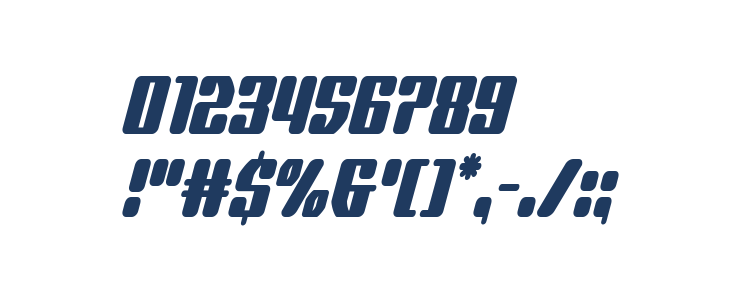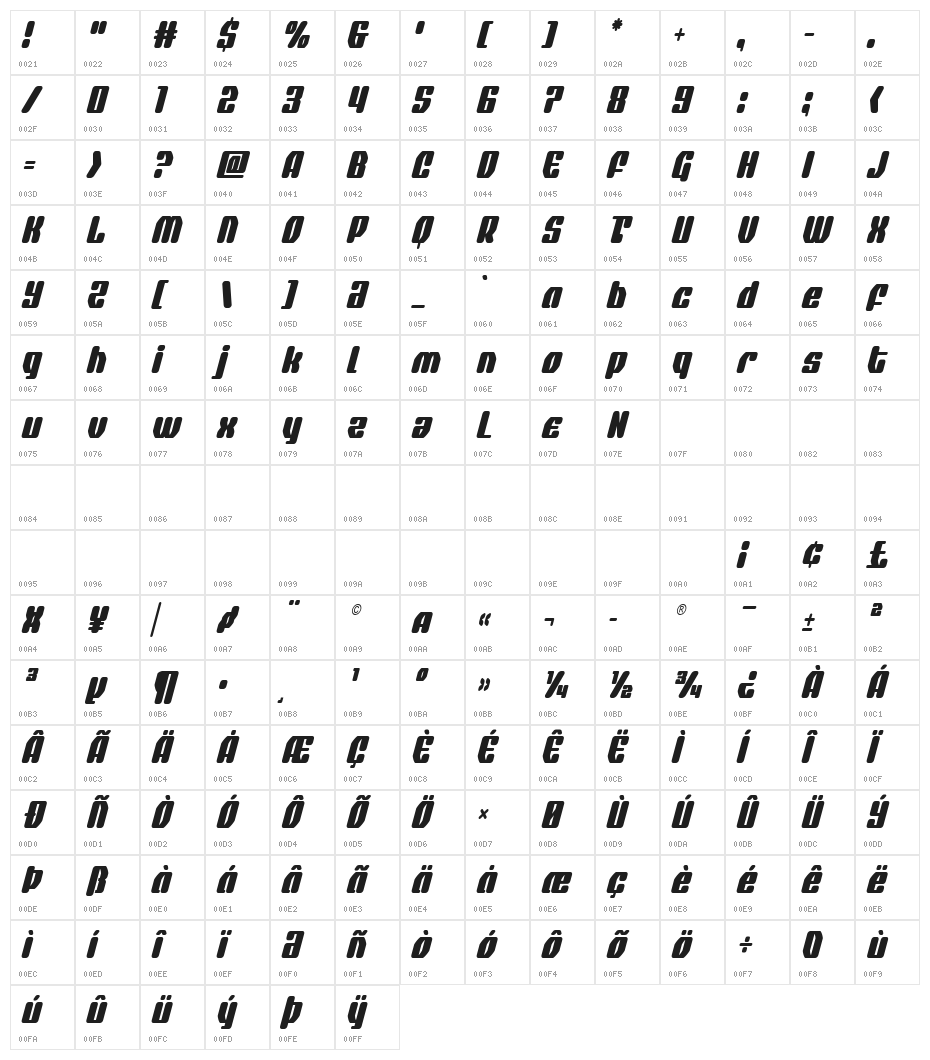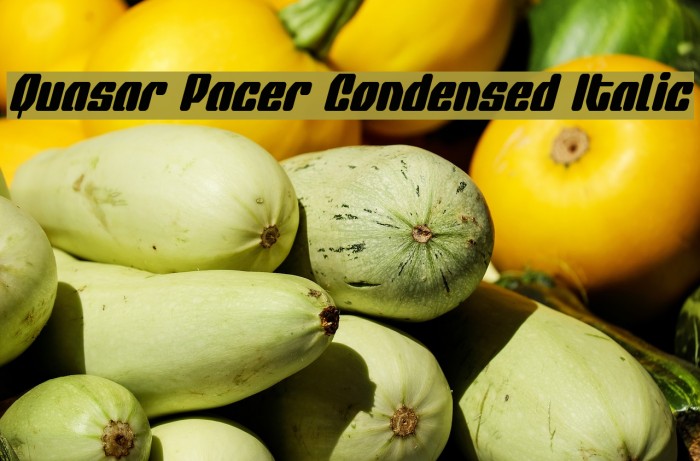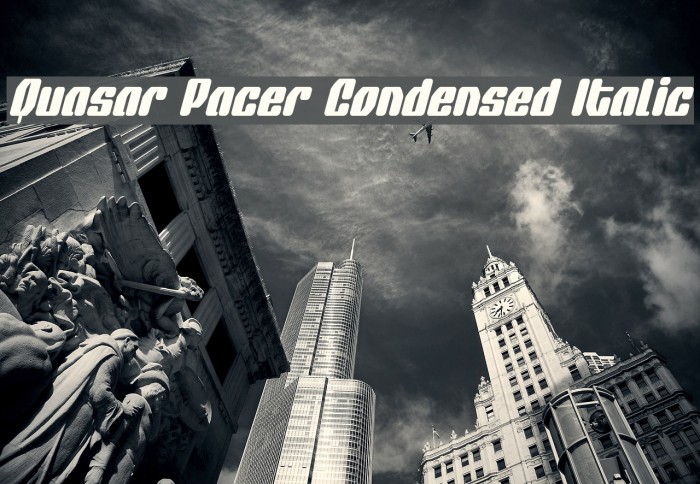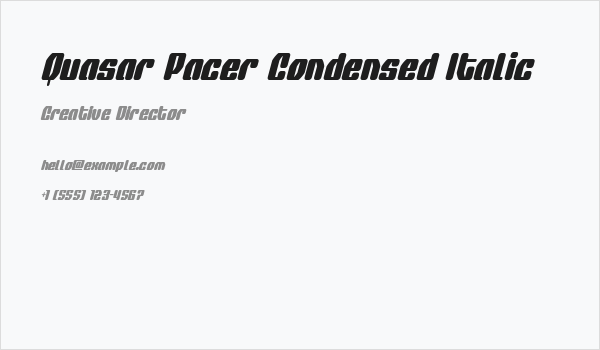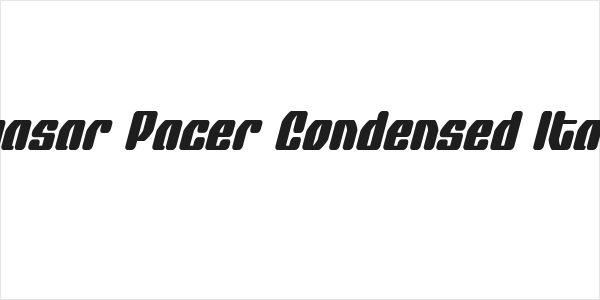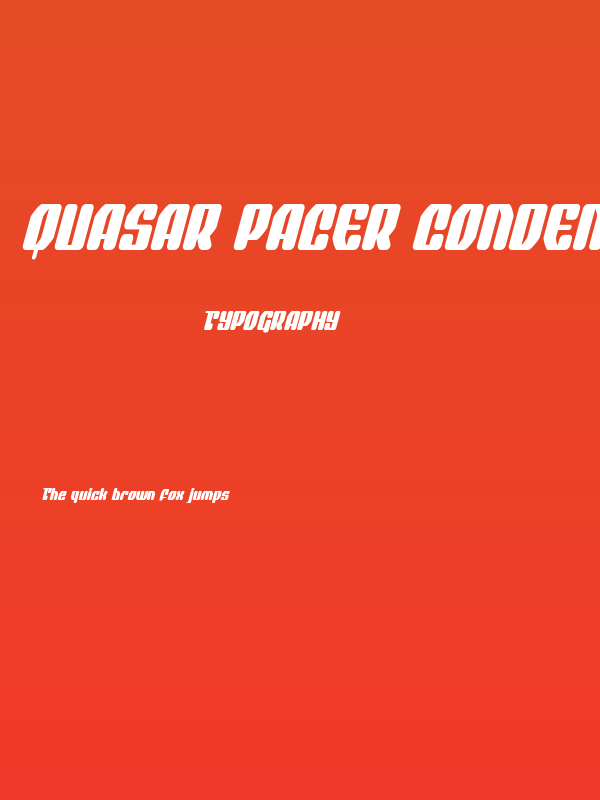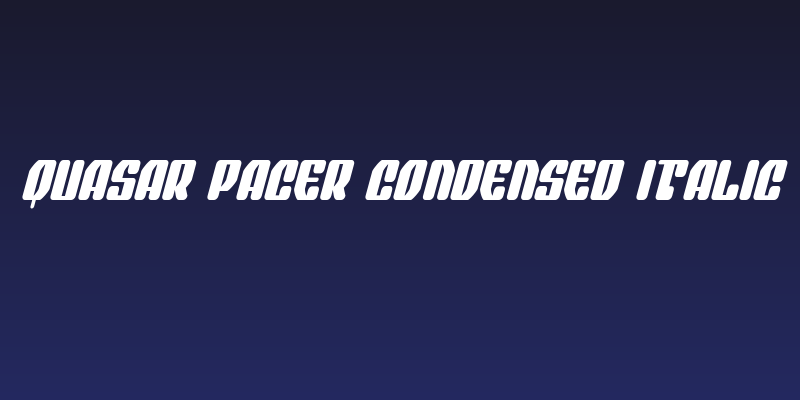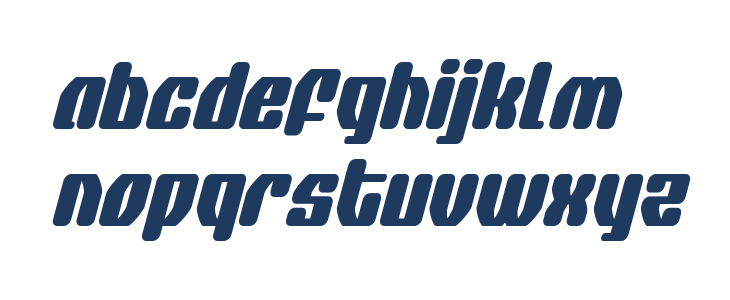
Quasar Pacer Condensed Italic Font
Quasar Pacer Condensed Italic Description
This font features a bold, condensed style with a distinct italic slant, giving it a dynamic and energetic appearance. The characters are tightly spaced, enhancing the compact look while maintaining readability. The strokes are thick and consistent, providing a strong visual impact. The uppercase and lowercase letters share a uniform design, with rounded edges and smooth curves that add a modern touch. The numerals and special characters are designed to match the overall aesthetic, ensuring cohesion across all elements. This font is ideal for projects that require a bold statement and a sense of movement.